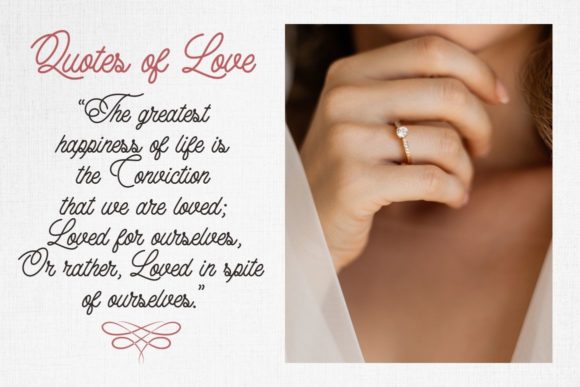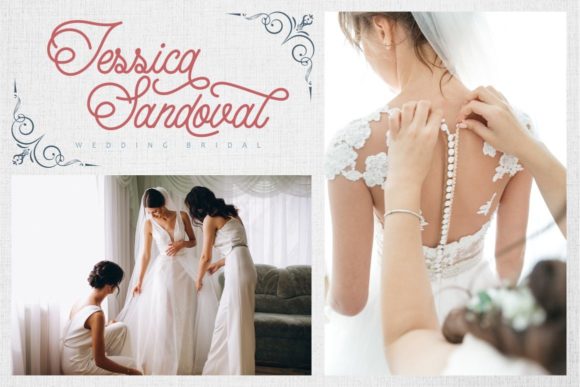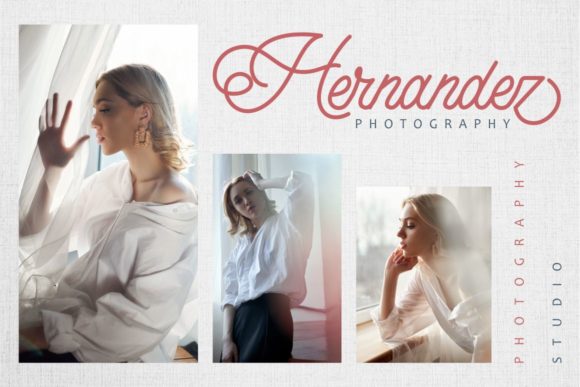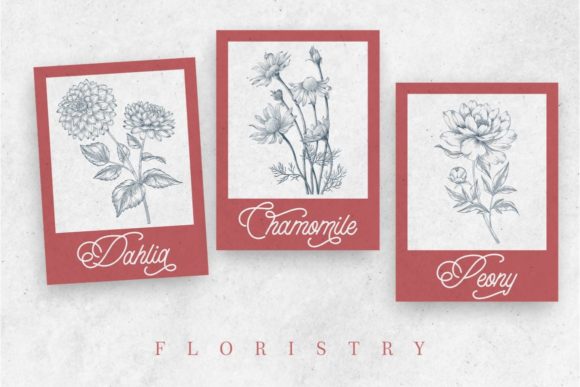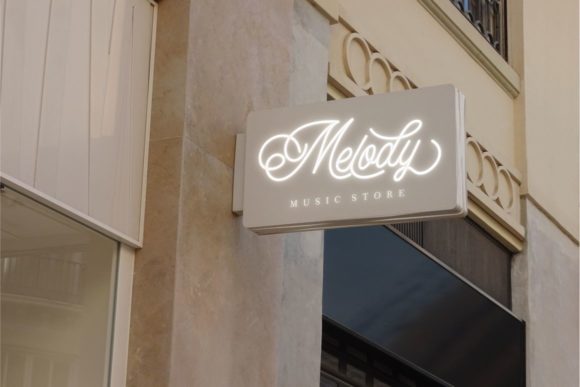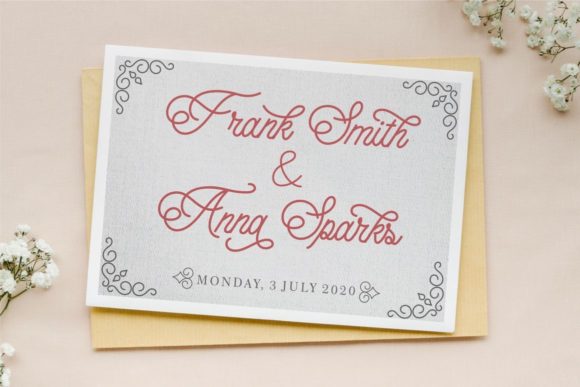
Introduction to Queen Veronica Font
Today, I’m excited to introduce you to the enchanting Queen Veronica Font, a luxurious handwritten font that’s sure to add a touch of elegance and romance to your designs. With its PUA encoding, you’ll have access to an array of amazing glyphs and ligatures, making it a valuable resource for designers looking to take their projects to the next level.
Key Features of Queen Veronica Font
- Unique, elegant script font suitable for creative projects and design resources.
- High-quality design with a transparent background, ideal for use in digital and print media.
- Comes in 1 style with 1 weight and 1 width, perfect for adding a touch of sophistication to your designs.
- Perfect for use in various creative projects, such as invitations, logos, and other design elements, due to its versatility and unique design.
Honest Review: Queen Veronica Font
I recently stumbled upon the Queen Veronica Font, and I must say it’s a great addition to any designer’s toolkit. This font is perfect for creating a touch of elegance and sophistication in any design project.
- ✨ High-quality design: The Queen Veronica Font is well-crafted, with smooth lines and a beautiful, classic feel.
- ⚠️ Limited character set: The font only includes a limited character set, which might not be suitable for designers who need a wide range of characters for their creative projects.
- ⚠️ Not ideal for bold text: The Queen Veronica Font is best suited for elegant, refined text. It’s not the best choice for bold or dramatic text.
Overall, I’m impressed with the Queen Veronica Font. It’s a great resource for designers who want to add a touch of elegance to their designs. While it has some limitations, it’s still a high-quality font that’s definitely worth checking out.
Queen Veronica Font is a high-quality design resource ideal for various creative projects. With its elegant and sophisticated style, it can elevate your design to the next level.
To get the most out of Queen Veronica Font, use it with a transparent background to create a cohesive look. Experiment with different font sizes and styles to find the perfect combination for your design.
Queen Veronica Font is ideal for:
- Magazine and newspaper headlines